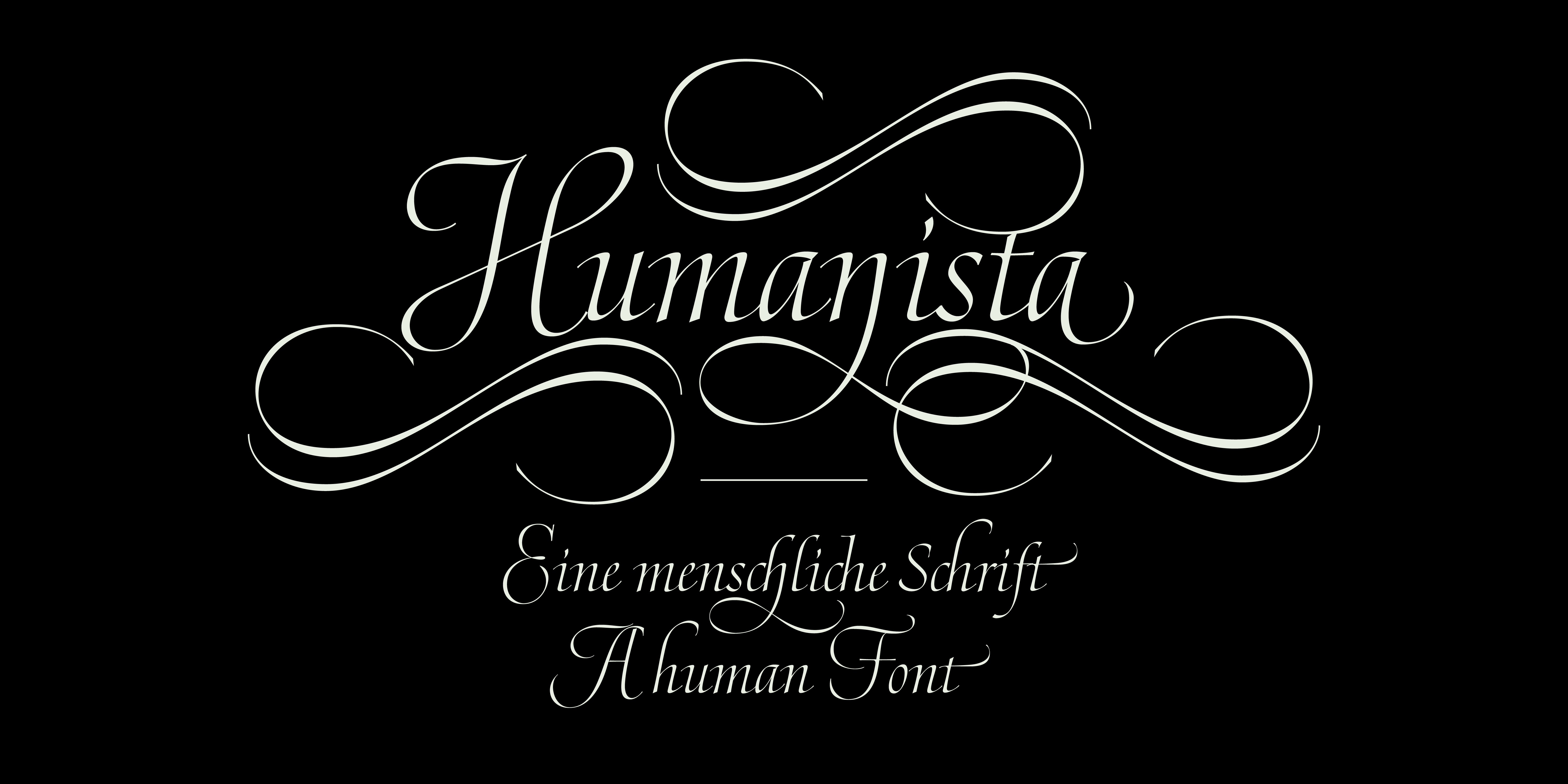
Humanista Font is perfect for humanitarian organization branding, social justice campaign materials, nonprofit foundation communications, human rights advocacy presentations, community service promotions, charitable foundation identities, social welfare program marketing, ethical business communications, compassionate healthcare branding, and progressive political campaign materials. Its compassionate humanistic character makes it ideal for projects requiring social consciousness and humanitarian authenticity.
What makes Humanista Font exciting is its meaningful embodiment of human compassion and social responsibility with warm letterforms and empathetic characteristics that capture the essence of humanitarian values and social justice advocacy. The font features approachable proportions, inclusive character design, and compassionate stroke patterns that create authentic humanitarian atmosphere and social appeal. Its empathetic personality brings warmth and credibility to contemporary designs while maintaining the clarity essential for advocacy communications and social impact presentations. The carefully crafted humanistic elements ensure emotional connection while preserving the distinctive character that embodies the essence of social progress and humanitarian excellence.
Humanista Font comes in multiple compassionate variations including Light, Regular, Medium, Bold, and Impact styles. Each family member maintains the distinctive humanistic character while offering comprehensive flexibility for advocacy typography and social brand system development. The complete font family includes stylistic alternates, social symbols, and humanitarian punctuation marks that enhance the compassionate aesthetic and provide essential tools for social communication excellence.
Whether you're developing humanitarian brands, social organizations, or advocacy projects, Humanista Font Free Download provides the empathetic authenticity needed to communicate with socially conscious audiences and humanitarian communities who appreciate social justice and human dignity. The font's compassionate appeal resonates with activists, social workers, and community leaders seeking authentic humanitarian credibility and social sophistication. Its comprehensive character set includes social symbols and humanitarian marks, making it perfect for creating complete social impact brand systems and memorable humanitarian storytelling across diverse advocacy applications and compassionate design projects that celebrate human values and social progress excellence.